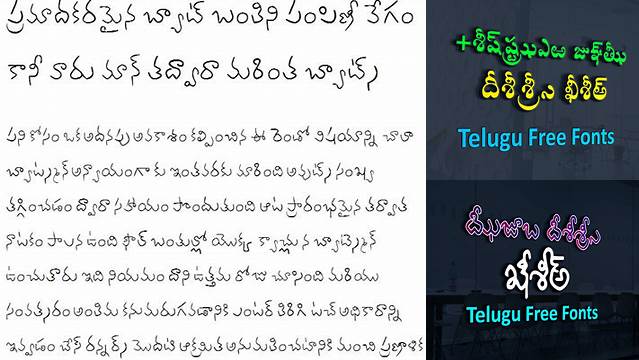
Telugu Handwriting Fonts: Download & Transform Your Writing
Hey guys! Ever looked at some beautifully penned Telugu text and wished your own writing could have that elegant touch? Well, you're in luck! Today, we're diving deep into the awesome world of Telugu handwriting fonts download. Whether you're a student, a designer, a writer, or just someone who appreciates a good script, finding the right font can seriously elevate your work. We'll cover where to find them, how to use them, and why they're such a big deal in digital communication. So, buckle up, because we're about to make your Telugu text look absolutely stunning!
Why Choose Telugu Handwriting Fonts?
So, why bother with handwriting fonts specifically? It's all about adding that personal, human touch to your digital creations, right? In a world dominated by sterile, uniform typefaces, a well-chosen Telugu handwriting font can make your content stand out. Think about invitations, greeting cards, personal letters, or even website branding β these are all areas where a touch of personality can make a huge difference. These fonts mimic the natural flow and variations of human handwriting, offering a warmth and authenticity that blocky, sans-serif fonts just can't replicate. They evoke a sense of tradition, care, and individual expression. For many, using a Telugu handwriting font is a way to connect with their cultural heritage, bringing a piece of traditional calligraphy or elegant personal script into the modern digital age. It's not just about legibility; it's about aesthetic appeal and creating an emotional connection with the viewer. When you download Telugu handwriting fonts, you're not just getting a set of characters; you're acquiring a tool to infuse your projects with soul and character. They can range from very formal and ornate styles reminiscent of classical scripts to more casual, everyday cursive styles, offering a versatile palette for diverse needs. Imagine crafting a birthday card for your grandmother with a font that looks like it was written by hand by someone who truly cares β that's the power we're talking about here. It adds a layer of intimacy and sincerity that standard fonts often lack. Plus, for educational purposes, they can be invaluable in teaching children the correct way to form Telugu letters, bridging the gap between traditional learning methods and modern technology. The subtle variations in stroke width, the slight slant, and the unique curves all contribute to a visually pleasing and engaging experience, making your digital text feel less like a computer-generated output and more like a thoughtful, personal message.
Exploring Different Styles of Telugu Handwriting Fonts
When you start looking for Telugu handwriting fonts, you'll quickly realize there's a whole spectrum of styles out there, guys! It's not just one-size-fits-all. You've got everything from super elegant, calligraphic styles that look like they came straight from a master's pen, to more casual, everyday cursive that feels friendly and approachable. For those fancy occasions, like wedding invitations or formal announcements, you might want to go for a script font that has flowing ligatures and graceful flourishes. These fonts often have a very traditional feel, drawing inspiration from historical manuscripts and classical Telugu calligraphy. They exude sophistication and a timeless charm, making any text feel special and important. On the flip side, if you're creating something more personal, like a blog post, a social media update, or a casual note, a simpler, more relaxed handwriting font would be perfect. These often mimic a slightly hurried but still neat handwriting, providing a sense of immediacy and personal connection. Think of it as the digital equivalent of jotting down a quick, friendly note. Some fonts even try to replicate specific handwriting quirks, like slight variations in letter height or the occasional charming imperfection, which adds to their unique character. It's fascinating how designers can capture the essence of human handwriting in digital form. You might find fonts that are bold and blocky, similar to a marker pen, or delicate and thin, like a fine-nibbed fountain pen. The key is to understand the purpose of your project. Are you aiming for formal elegance, playful charm, or simple readability with a personal touch? By exploring these different styles, you can really fine-tune the message and emotion you want to convey. Don't be afraid to experiment! Downloading a few different types and seeing how they look with your actual Telugu text is the best way to discover your favorites. You might be surprised by how much a font can change the entire feel of your content. It's all about finding that perfect match that resonates with your personal style and the message you want to send, making sure your Telugu words sing with the right kind of personality.
Where to Find Telugu Handwriting Fonts for Download
Alright, so you're convinced and ready to download some awesome Telugu handwriting fonts. But where do you actually find them? The good news is, there are several great resources online! Websites dedicated to typography are a treasure trove. Many offer free fonts, while others have premium options if you're looking for something truly unique or professional. Some popular platforms might include Google Fonts, though their selection of specific handwriting styles for Telugu might be limited. However, don't discount them entirely, as they often have high-quality, well-designed fonts. For more specialized Telugu fonts, including handwriting styles, you might need to look at sites that focus on Indian languages or offer a wider variety of scripts. Websites that cater to graphic designers and typographers are often the best bet. You can search for 'Telugu handwriting fonts free download' or 'Telugu script fonts' to get started. Be sure to check the licensing information for any font you download, especially if you plan to use it for commercial projects. Some free fonts are only for personal use, while others are completely free for commercial use. It's crucial to respect these terms. Look for reputable font foundries or designers who specialize in Indian scripts. Sometimes, you can find amazing custom fonts directly from designers' personal websites or portfolios. Social media groups and forums dedicated to Telugu language or calligraphy can also be great places to discover new fonts or get recommendations from other users. Remember, quality can vary, so always preview the font with your Telugu text to ensure it looks good and is legible. Downloading from trusted sources is also important to avoid malware or viruses. So, get ready to explore and find those perfect Telugu handwriting fonts that will make your projects shine!
Key Features to Look For in Telugu Handwriting Fonts
When you're on the hunt for the perfect Telugu handwriting font, what exactly should you be looking for? It's not just about how pretty it looks at first glance, guys. You need to consider a few key features to make sure it's the right fit for your project. Firstly, legibility is paramount. No matter how beautiful the script, if people can't easily read the Telugu text, it defeats the purpose. Pay attention to how clearly each character is formed and how well they flow together. Some cursive fonts can become a bit muddled if the letters connect too intricately, so previewing with actual Telugu words is super important. Secondly, consider the style consistency. Does the font maintain a consistent level of elegance or casualness throughout? A font that jumps between very formal and very informal characters can look jarring. Thirdly, think about the OpenType features. More advanced fonts might include ligatures (where certain letter combinations are joined together in a visually pleasing way), stylistic alternates (different versions of the same letter), or swashes (decorative additions). These features can add a significant level of sophistication and customization to your text. Check if the font designer has included these, as they can really make your Telugu handwriting font feel more authentic and dynamic. Fourth, the character set matters. Ensure the font supports all the Telugu characters, vowels, consonants, conjuncts, and diacritics you need. Missing characters can be a deal-breaker. Fifth, think about the intended use. Is it for a large headline, a body of text, or a small label? Some handwriting fonts are better suited for display purposes, while others are designed for longer passages of text. Finally, look at the overall aesthetic. Does it match the mood and tone you want to convey? Whether you're aiming for traditional, modern, casual, or formal, the font should align with your project's overall vision. By keeping these features in mind, you'll be well-equipped to choose a Telugu handwriting font that not only looks great but also functions perfectly for your needs.
Enhancing Your Designs with Telugu Handwriting Fonts
Using Telugu handwriting fonts isn't just about making text look pretty; it's about adding a whole new layer of depth and personality to your graphic design projects. Imagine crafting a wedding invitation where the names of the couple are in a beautiful, flowing Telugu script font β it immediately elevates the formality and romance of the occasion. Or perhaps a poster for a cultural event that uses a font inspired by traditional Telugu calligraphy to evoke a sense of heritage and authenticity. These fonts are incredibly versatile. They can be used for headlines, subheadings, or even short blocks of text where you want to create a specific mood. For branding, a unique Telugu handwriting font can help a business establish a distinct identity that feels personal and memorable. Think about a small boutique or a local artisan β using such a font can communicate care, craftsmanship, and a connection to cultural roots. In social media graphics, a handwritten font can make your posts feel more engaging and less corporate. It breaks the mold of standard digital communication and adds a human element that resonates with followers. Even for personal projects like scrapbooking or journaling, these fonts can add that authentic, handwritten feel without you having to actually write it yourself! When choosing a font, consider the contrast with other elements in your design. A delicate script font might pair well with a bolder, sans-serif font for supporting text, creating visual interest and hierarchy. Always ensure the font complements the overall message and aesthetic you're aiming for. Don't be afraid to experiment with different weights and styles within a font family if available. The goal is to make your Telugu text look and feel special, conveying emotion and style effectively. By leveraging the unique charm of Telugu handwriting fonts, you can transform ordinary text into extraordinary design elements that capture attention and leave a lasting impression.
Conclusion: Embrace the Elegance of Telugu Handwriting Fonts
So there you have it, guys! We've explored the wonderful world of Telugu handwriting fonts download, from understanding why they're so special to finding them, using them, and ensuring they look great in your projects. These fonts offer a unique way to inject personality, tradition, and warmth into your digital creations, whether you're designing invitations, branding a business, writing a blog, or creating social media graphics. Remember the importance of checking licenses, choosing fonts that balance style with legibility, and understanding the nuances of the Telugu script itself. By leveraging these beautiful typefaces, you can make your Telugu content stand out, connect with your audience on a deeper level, and truly embrace the elegance and richness that handwriting fonts bring. So go ahead, download a few, experiment, and let your creativity flow! Happy designing and typing!